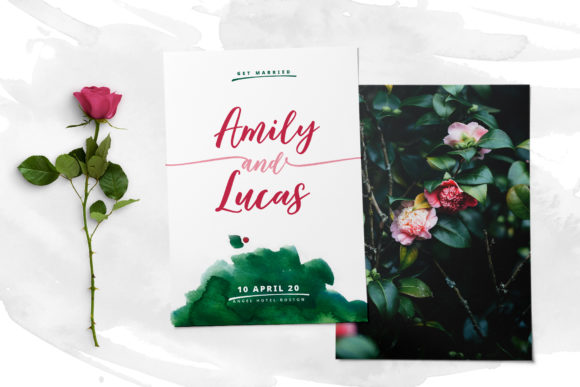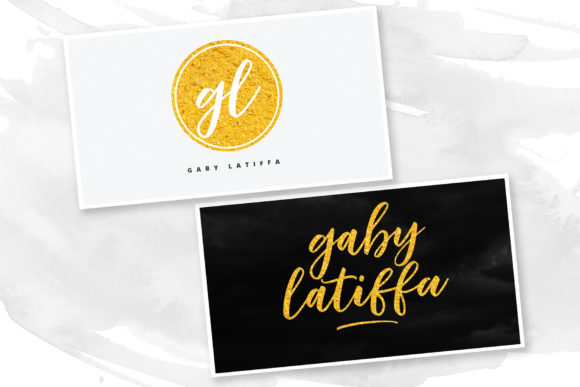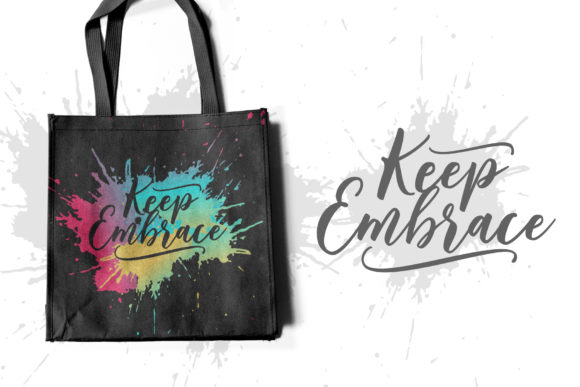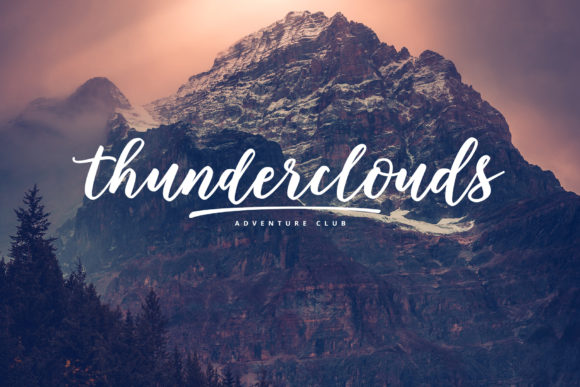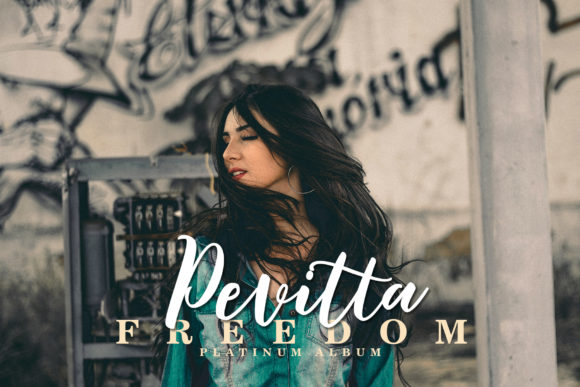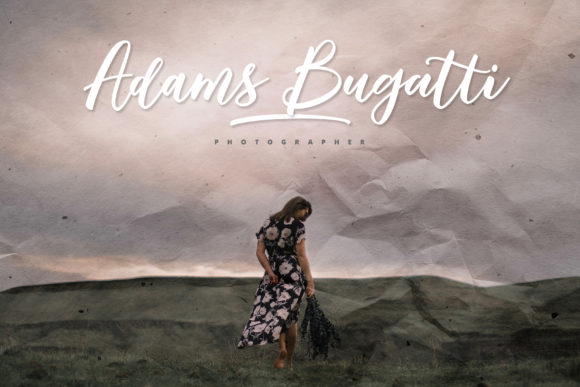
The Blukade Font: A Handwritten Script to Fall in Love With
I’ll never forget the moment I stumbled upon the Blukade font while working on a wedding invitation project for a client. I had been searching for the perfect handwritten script to give it that personal touch, and Blukade caught my eye. Its elegant style and authentic feel immediately drew me in, and I knew I had found the one. In this article, I’ll share my love for Blukade, its features, and how to make the most of it in your designs.
An Honest Review of Blukade
What I Love About Blukade ✨
- 💕 Elegant and authentic handwritten style
- 🎨 Versatile and suitable for various design projects, from wedding invitations to social media posts
- 🌈 Beautifully crafted with attention to detail
- ⚠️ Limited character set compared to other fonts
- 🤔 May not be the best choice for body text or long-form content
The Story Behind Blukade
Blukade was designed with love and care by a talented type designer who wanted to create a font that would evoke emotions and add a personal touch to designs. The font’s elegant style and authentic feel are inspired by traditional handwritten scripts, with a modern twist to make it versatile and easy to use.
Q: What type of projects is Blukade suitable for?
A: Blukade is perfect for creative projects that require a personal touch, such as wedding invitations, stationery, social media posts, and greeting cards.
Q: Is Blukade a difficult font to read?
A: No, Blukade is highly legible, even at small sizes, making it suitable for a wide range of design projects.
Q: Can I use Blukade with other fonts?
A: Yes, Blukade can be paired with other fonts to create a unique and visually appealing design. Experiment with different font combinations to find the perfect match.